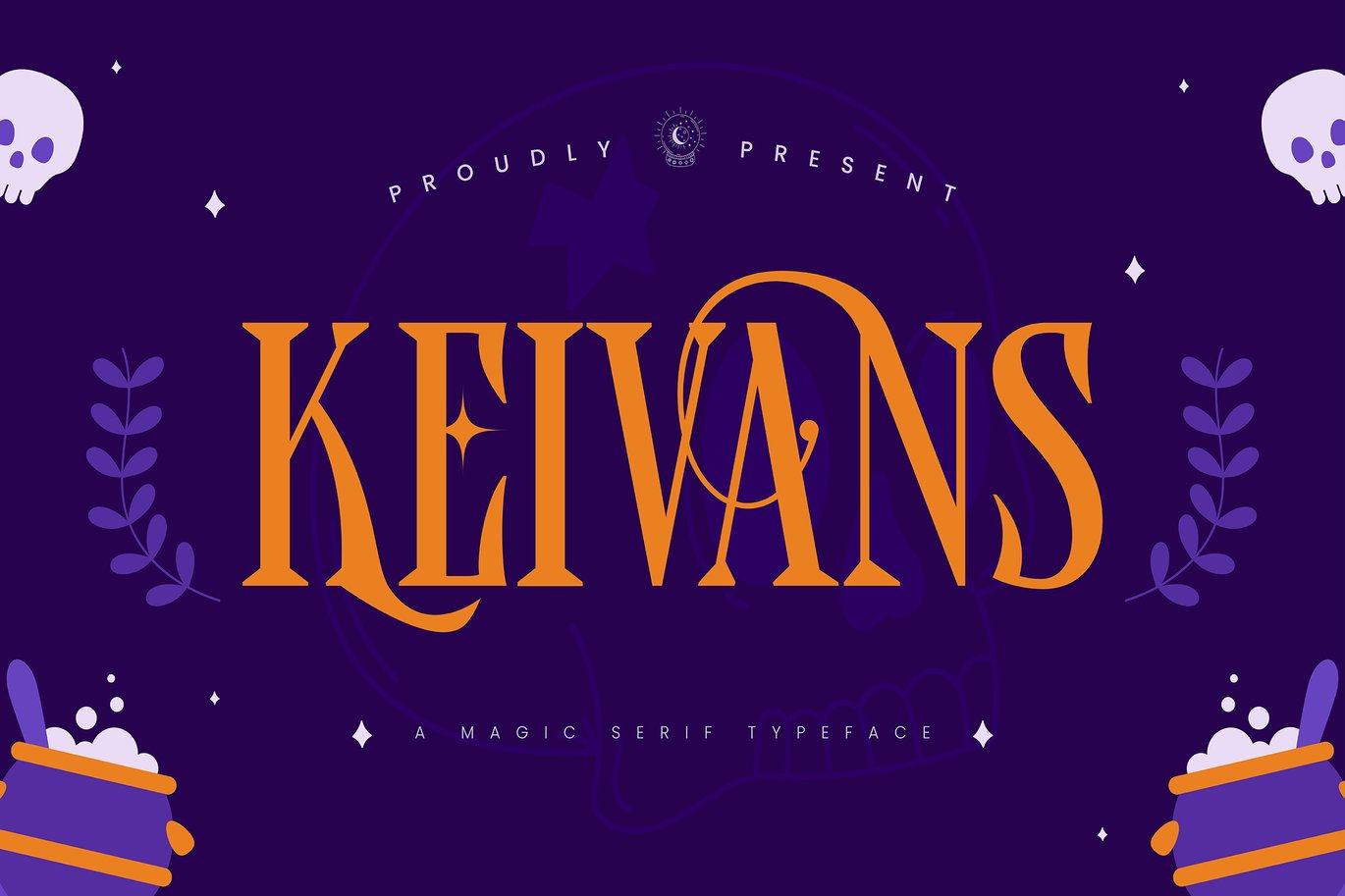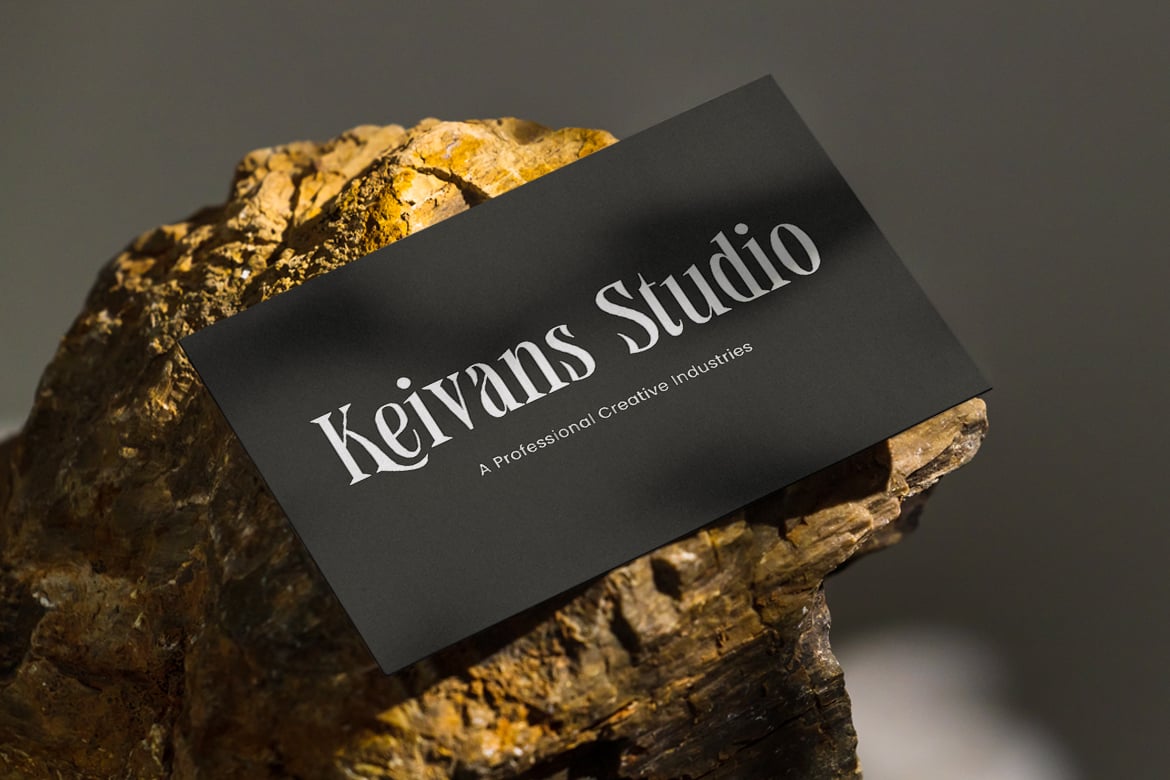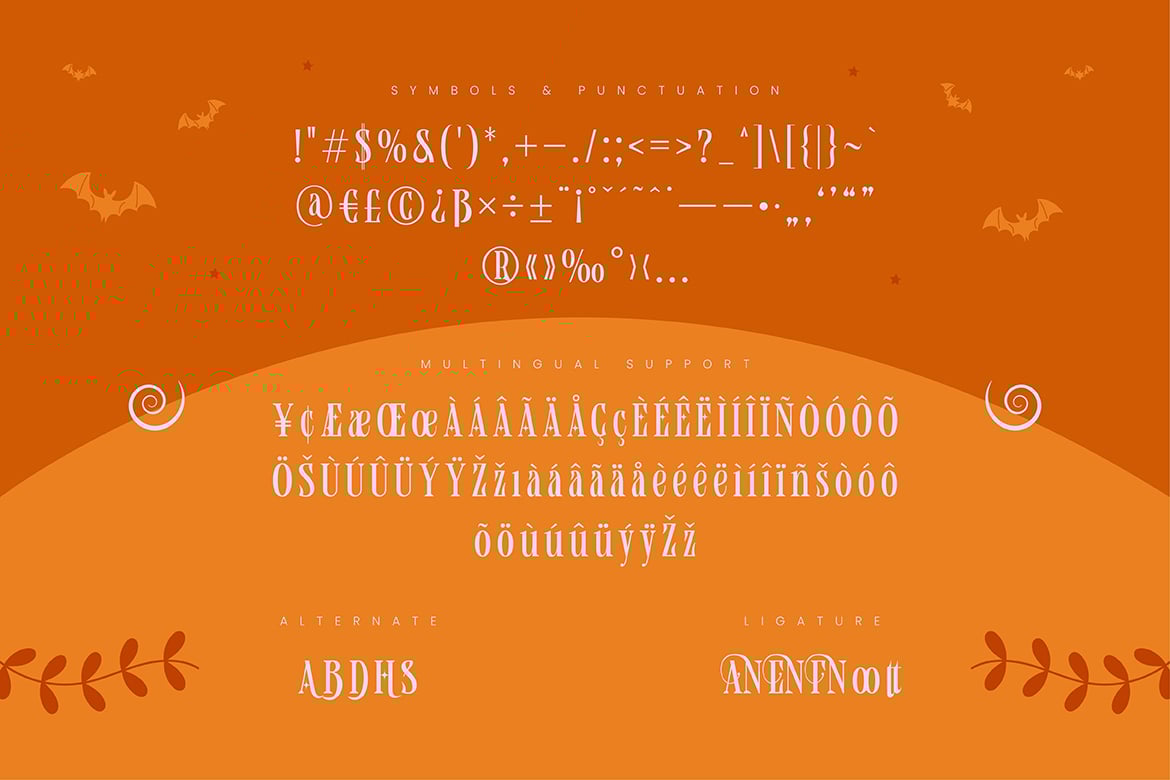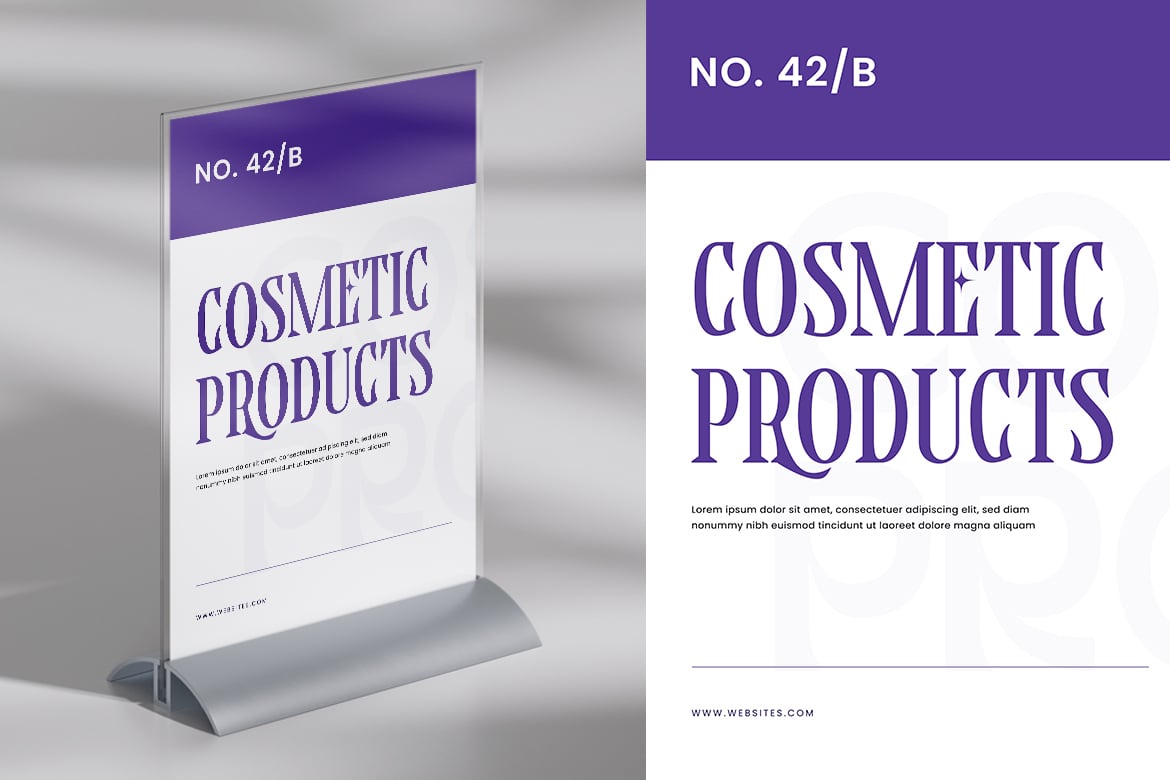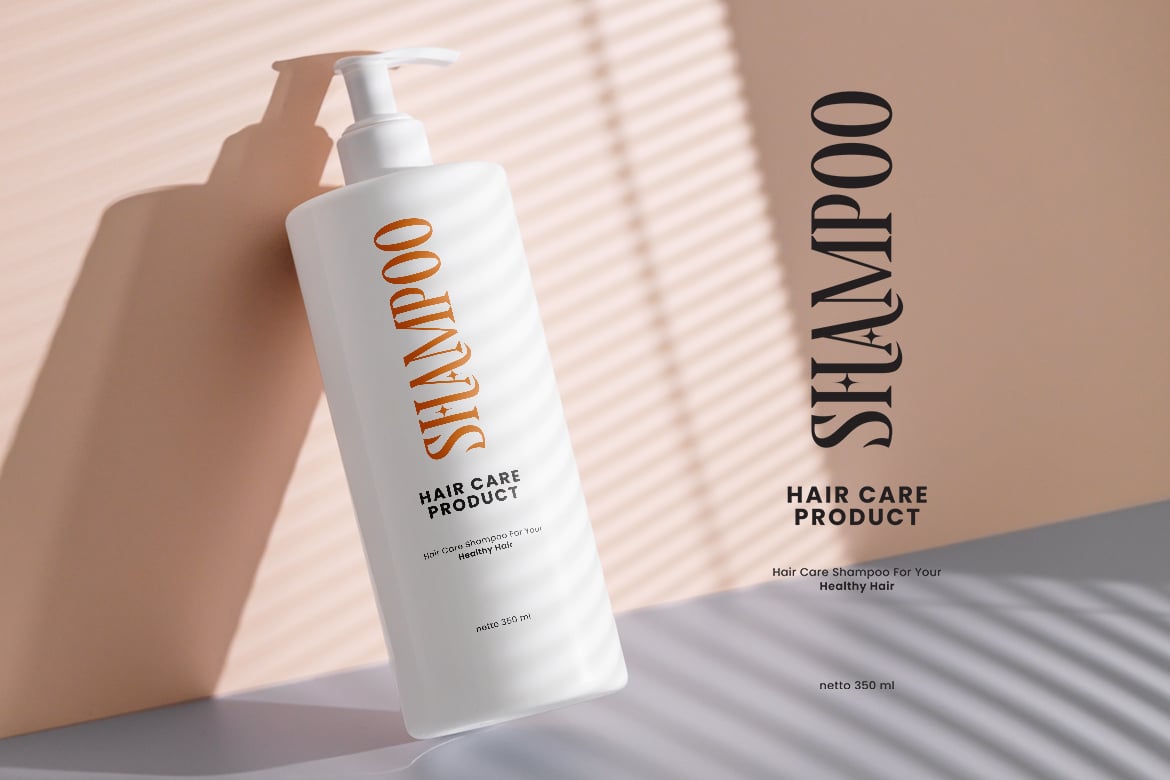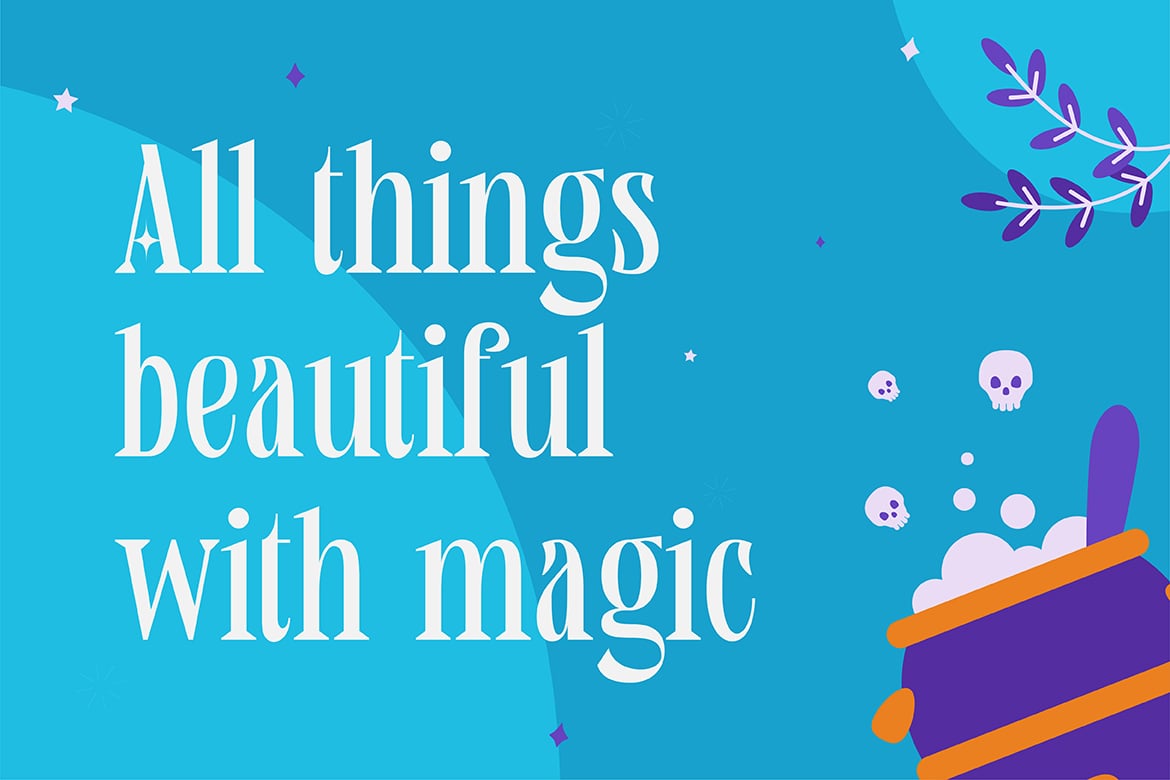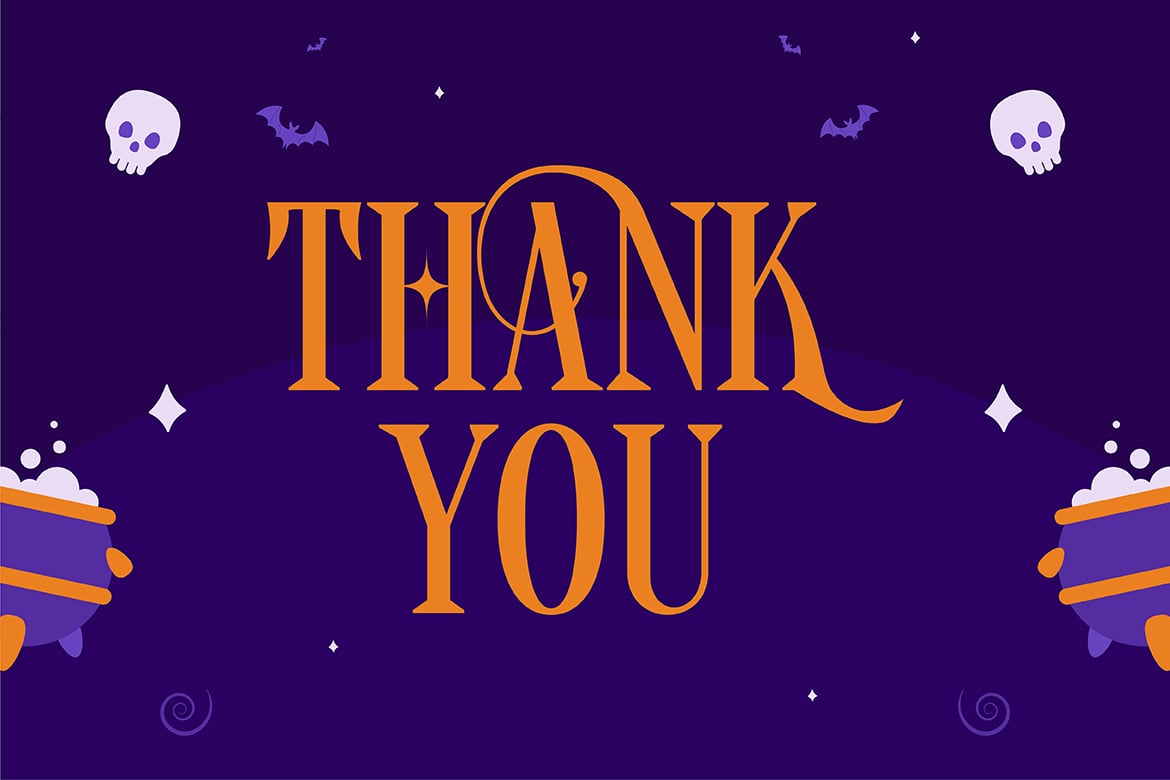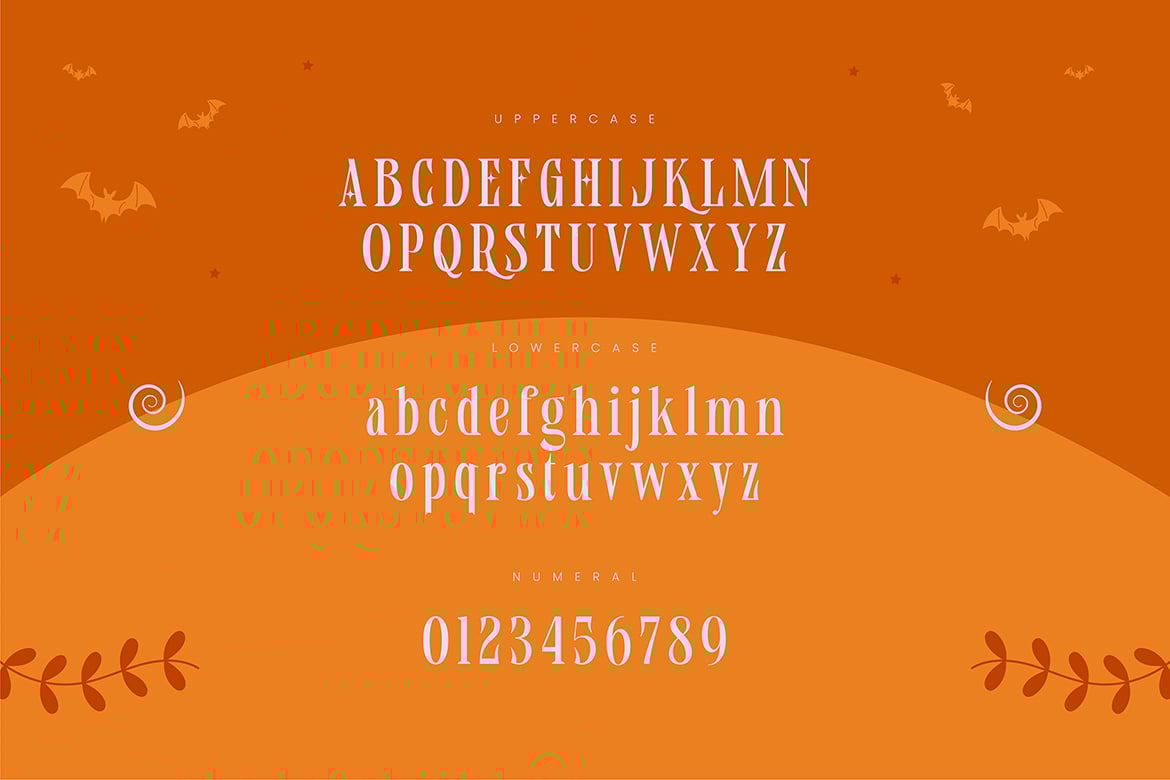
Keivans – A Magic Serif Typeface
Keivans is a magical serif typeface that blends elegance with an enchanting, mystical flair. With its refined serifs and subtle ornamental details, Keivans is perfect for fantasy-themed projects, book covers, branding, and invitations that need a touch of wonder and sophistication. This typeface captures a sense of mystery and beauty, making it ideal for designs that evoke a magical or whimsical atmosphere. Whether used in print or digital formats, Keivans adds a timeless, ethereal charm to your creative work.